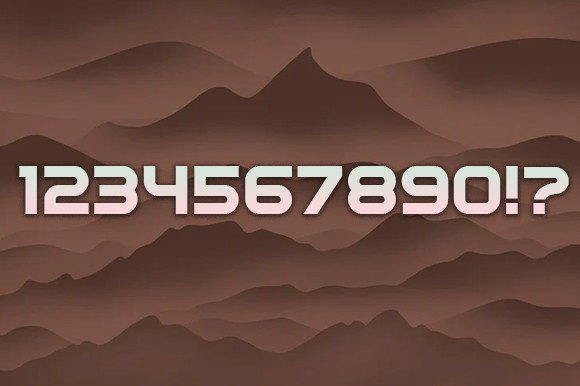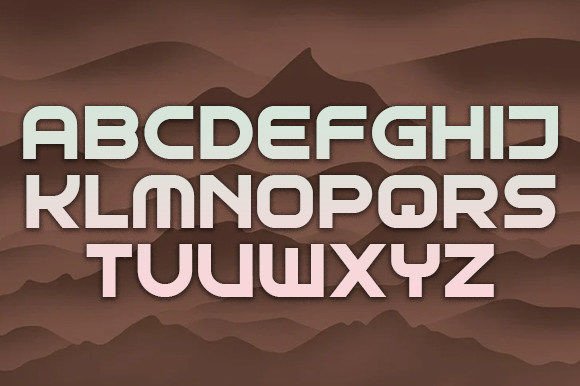
Introducing Enfolding: The Ultimate Display Typeface for Your Creative Projects
Are you tired of using the same old fonts for your designs? Look no further! Enfolding is an exciting new display typeface that’s perfect for adding a touch of creativity and personality to your projects. With its unique and stylish design, Enfolding is sure to make your posters, banners, t-shirts, and other materials stand out from the crowd.
What Makes Enfolding So Special?
Enfolding is more than just a font – it’s an experience. Its carefully crafted design ensures that it’s both visually striking and highly legible, making it perfect for use in a wide range of applications. Whether you’re a professional designer or a crafty DIY enthusiast, Enfolding is sure to become your go-to font for all your creative projects.
Key Features of Enfolding Font
- Unique and Stylish Design: Enfolding’s distinctive design sets it apart from other fonts, making it perfect for adding a touch of personality to your projects.
- Highly Legible: Despite its creative design, Enfolding remains highly legible, even at smaller sizes.
- Versatile: Enfolding is perfect for use in a wide range of applications, from posters and banners to t-shirts and more.
- Easily Customizable: With Enfolding, you can easily adjust the font size, color, and style to fit your project’s needs.
How to Use Enfolding in Your Designs
Ideas for Using Enfolding
So, how can you use Enfolding in your designs? Here are a few ideas to get you started:
- Posters: Use Enfolding to create eye-catching posters for events, promotions, or announcements.
- Banners: Add a touch of personality to your banners with Enfolding’s unique design.
- T-Shirts: Create custom t-shirts with Enfolding’s stylish design.
- Social Media Graphics: Use Enfolding to add a creative touch to your social media graphics.
Tips for Getting the Most Out of Enfolding
To get the most out of Enfolding, here are a few tips:
- Experiment with Different Font Sizes: Don’t be afraid to experiment with different font sizes to find the perfect look for your project.
- Play with Color: Try out different colors to see what works best with Enfolding’s design.
- Combine with Other Fonts: Consider combining Enfolding with other fonts to create a unique and visually appealing design.
In conclusion, Enfolding is an awesome display typeface that’s perfect for adding a touch of creativity and personality to your designs. With its unique and stylish design, highly legible text, and versatility, Enfolding is sure to become your go-to font for all your creative projects. So why wait? Download Enfolding today and start creating stunning designs that will leave a lasting impression!